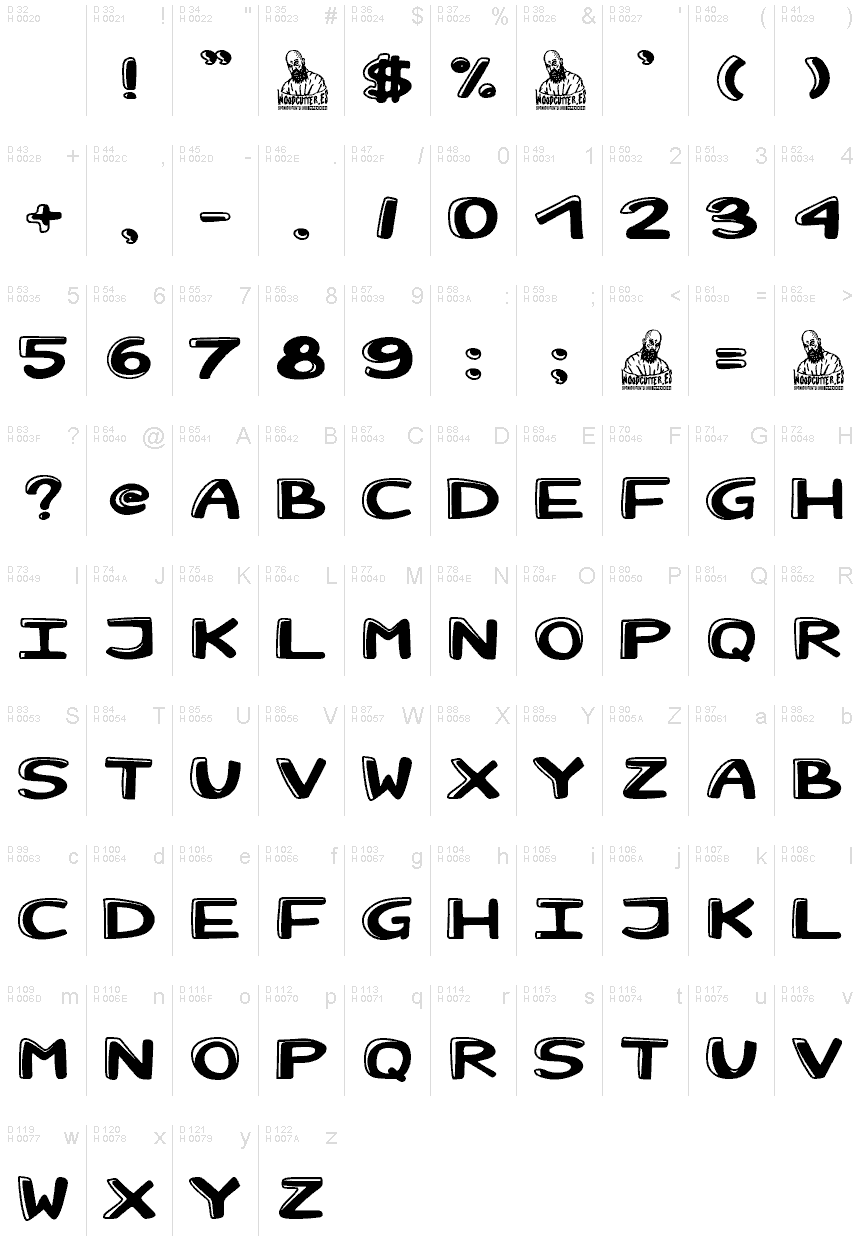
Semper Fideos
Semper Fideos font by Woodcutter is an expanded display font that makes every word look extra fun! This cartoonish typeface has an out-of-the-box design with multilayered characters in a black and white pattern which looks like it was taken from a comic book. The modern aesthetic arrives through thin geometric elements, clean lines, high-contrast builds, among others.
A big personality calls for important uses and Semper Fideos will move seamlessly to advertise TV shows and short films for children and young adults, or decorate literature material inside books. Free display fonts of this level are useful for branding products such as food items (e.g. cereal boxes), packaging products aimed at teens as well as creating printed posters that need to catch viewers' attention through only the words typed on them.